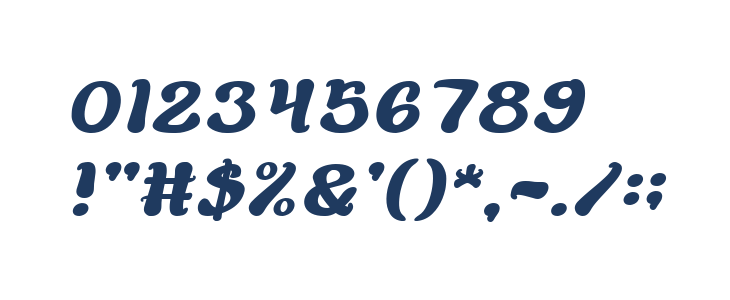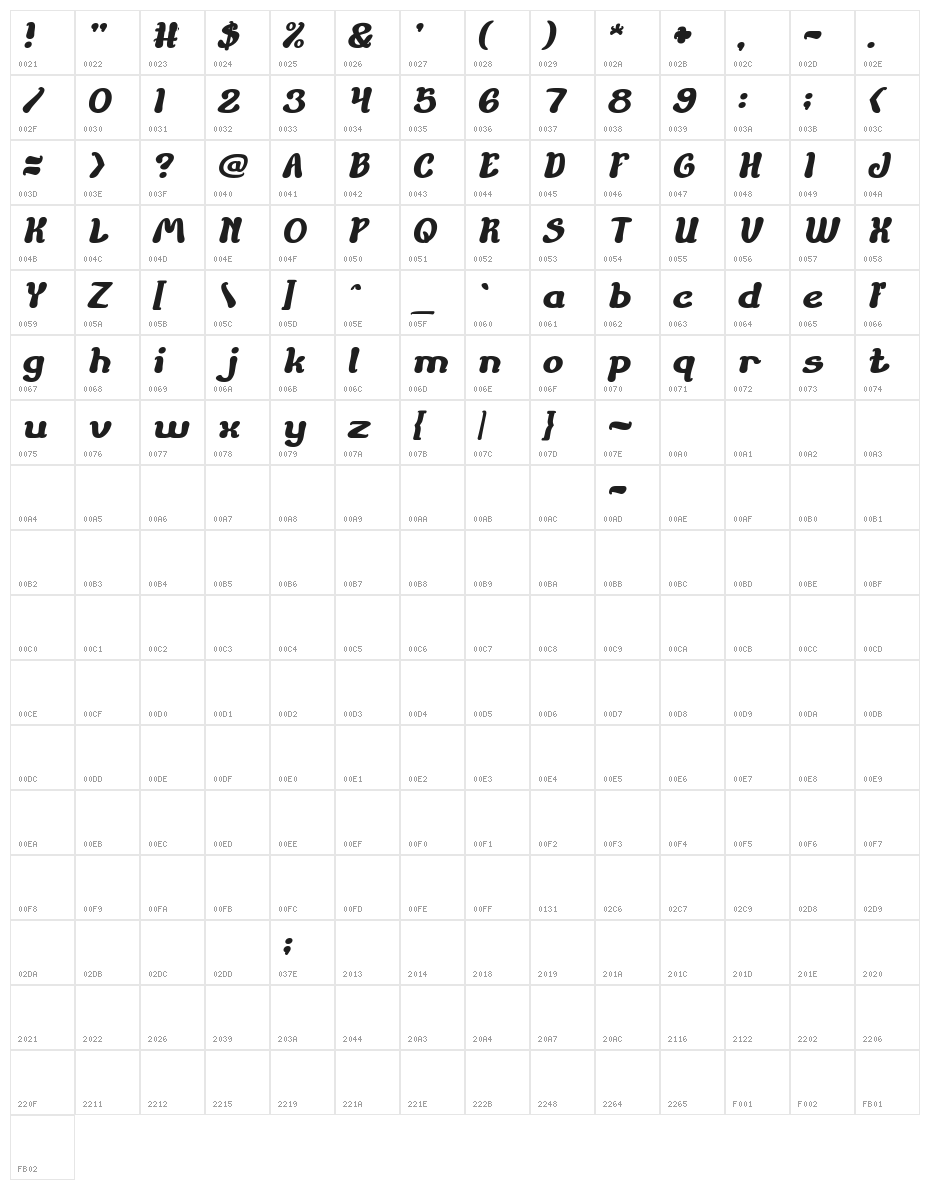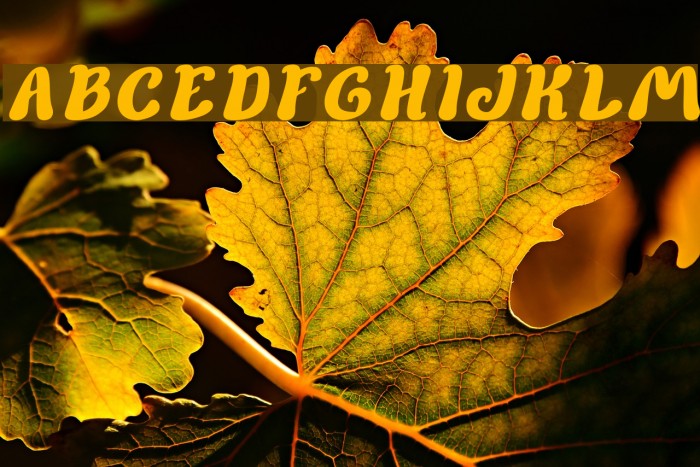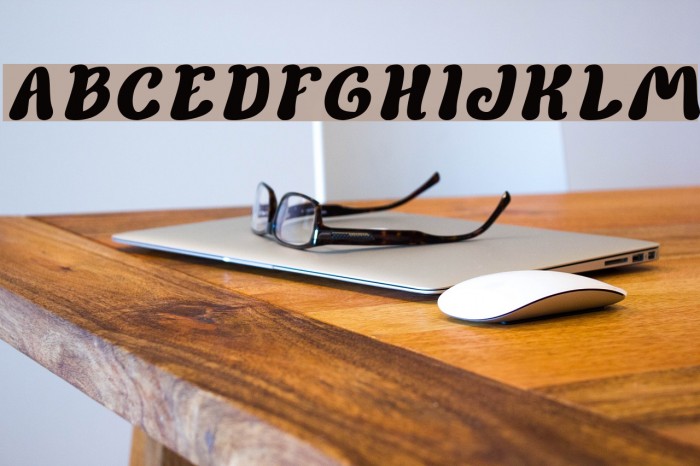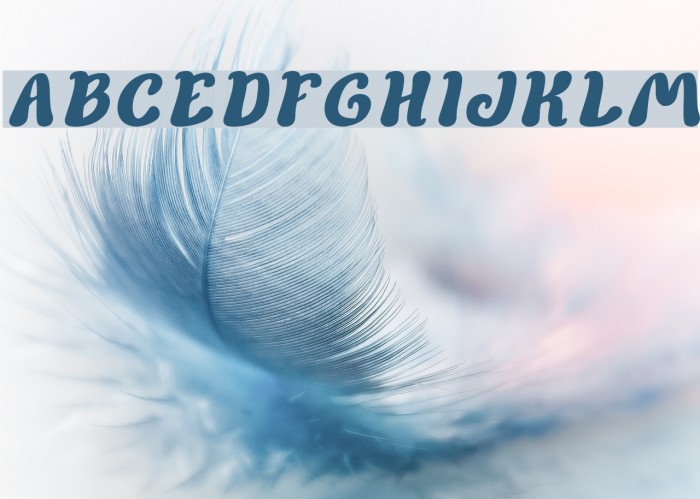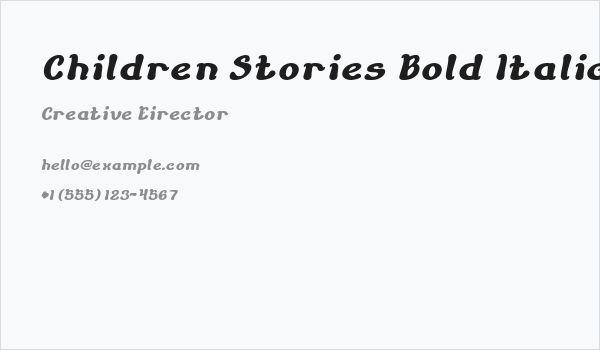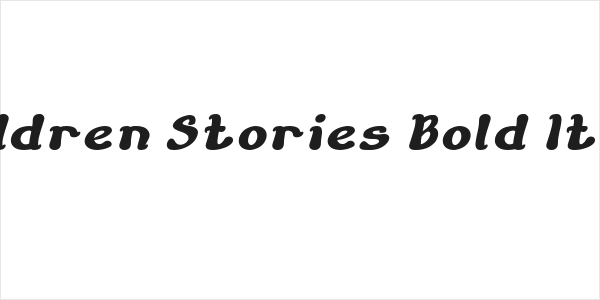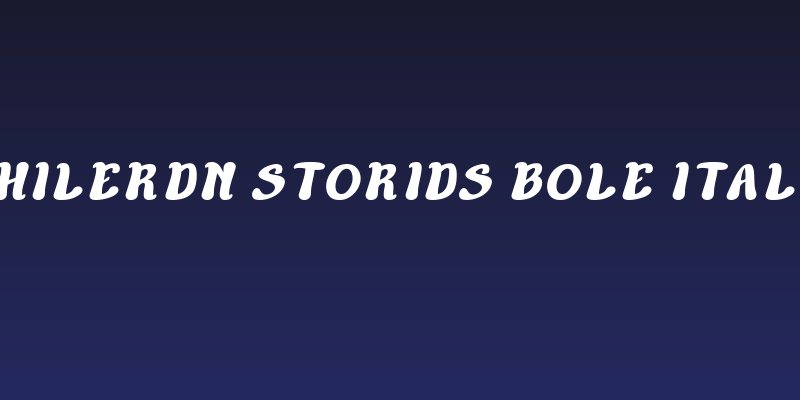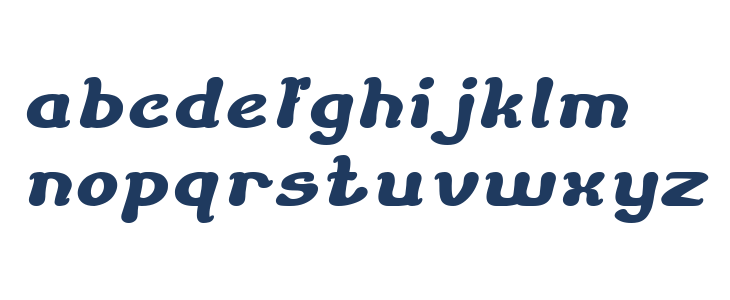
Children Stories Bold Italic Font
Children Stories Bold Italic Description
This playful and whimsical font features bold, rounded characters with a smooth, flowing italic style. The letters are designed with a sense of movement, making them appear lively and energetic. The uppercase and lowercase letters maintain a consistent style, with slightly exaggerated curves and a friendly appearance. The numbers and special characters are equally bold and rounded, ensuring a cohesive look across all elements. This font is perfect for projects that require a fun and approachable aesthetic, such as children's books, playful branding, or creative posters.
| Proposed Projects | Ideal for children's books, playful branding, creative posters, and any project needing a fun, approachable aesthetic. |